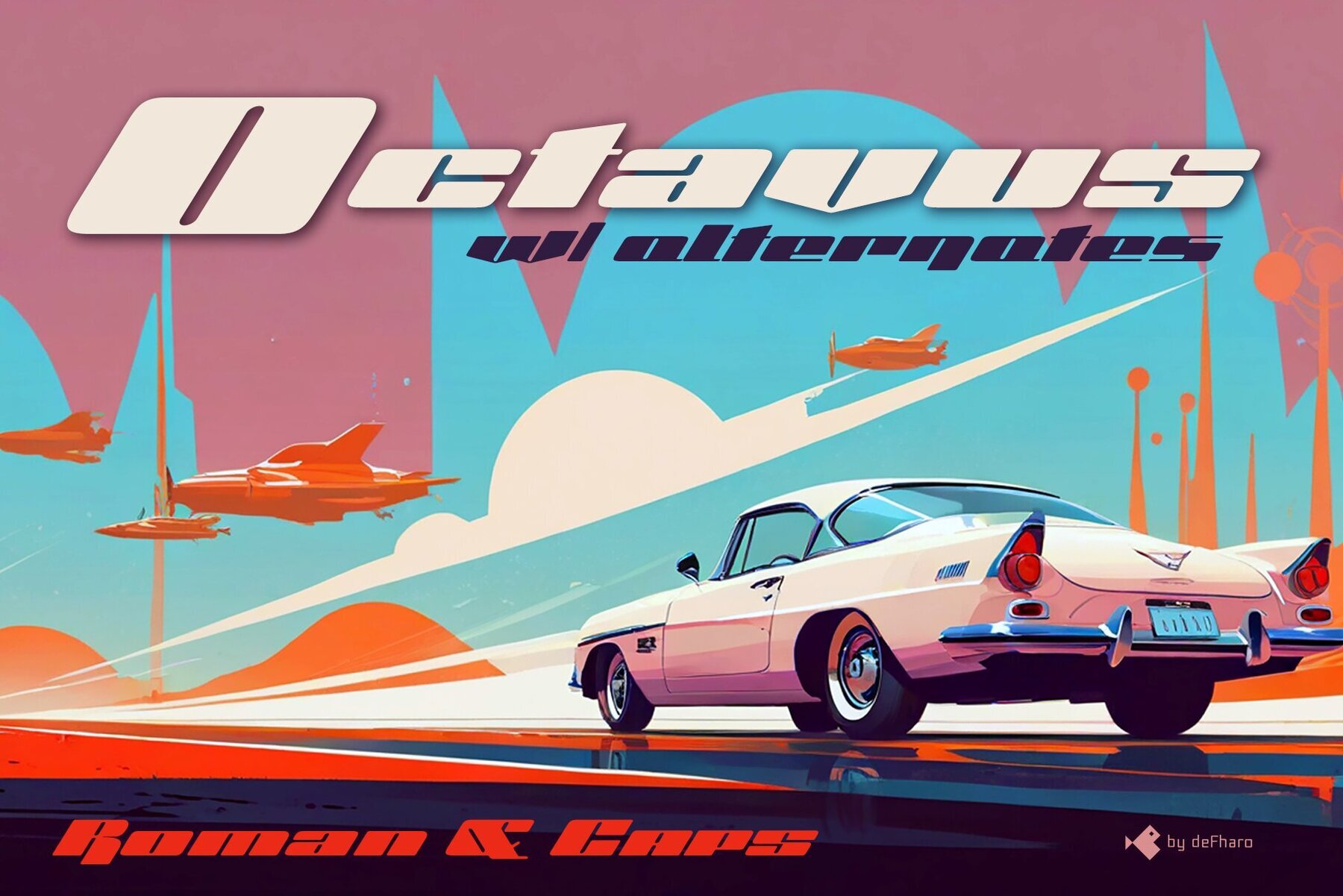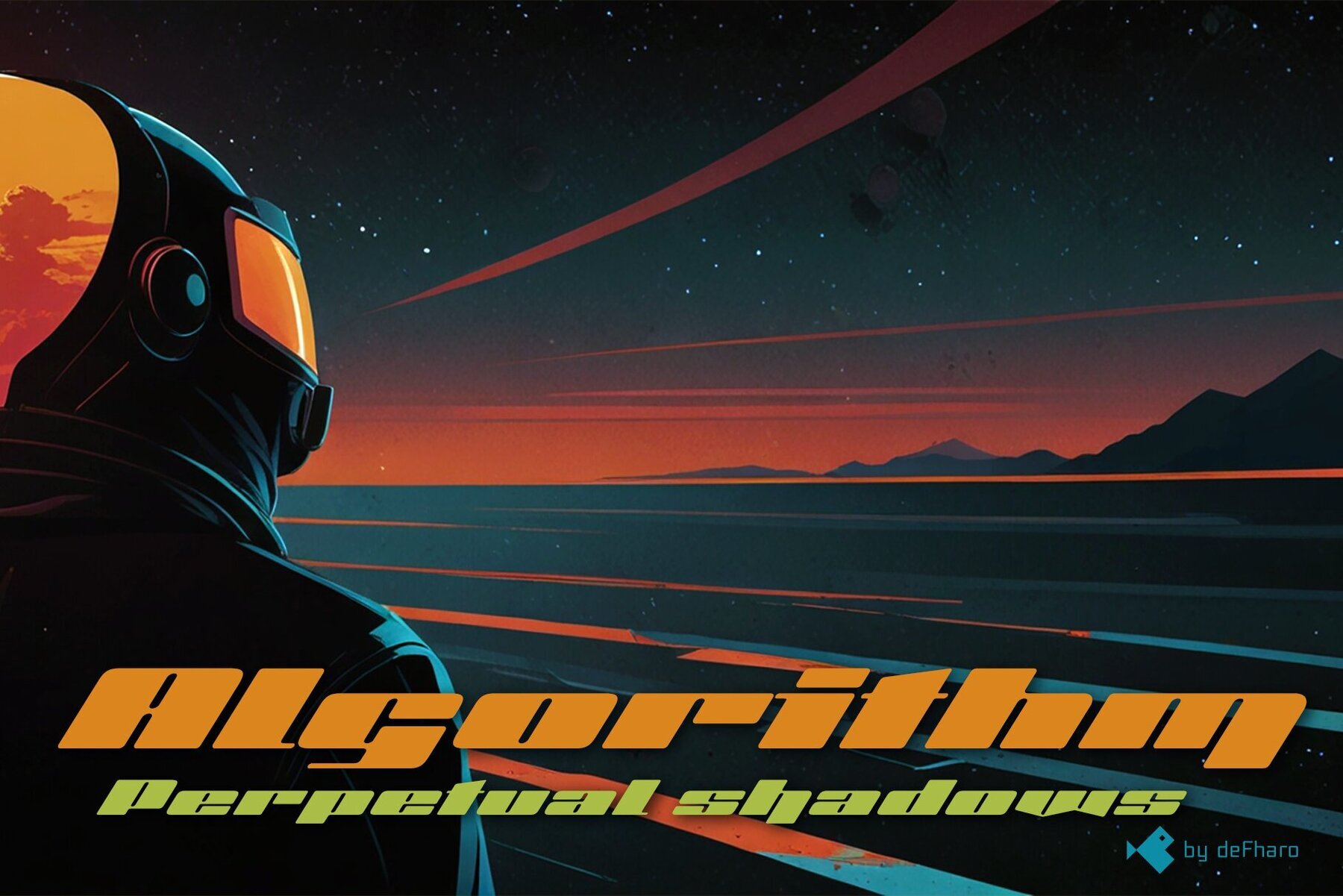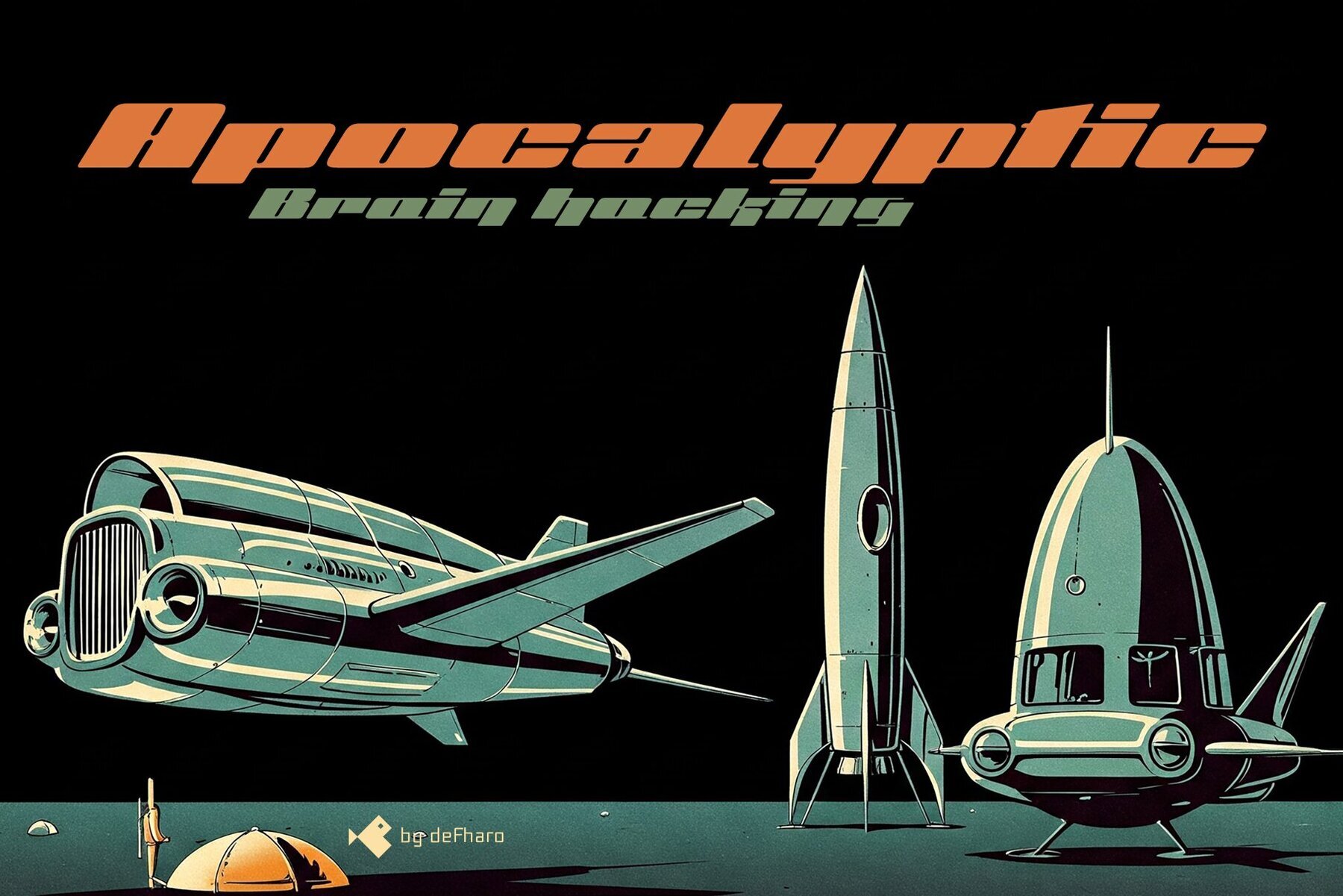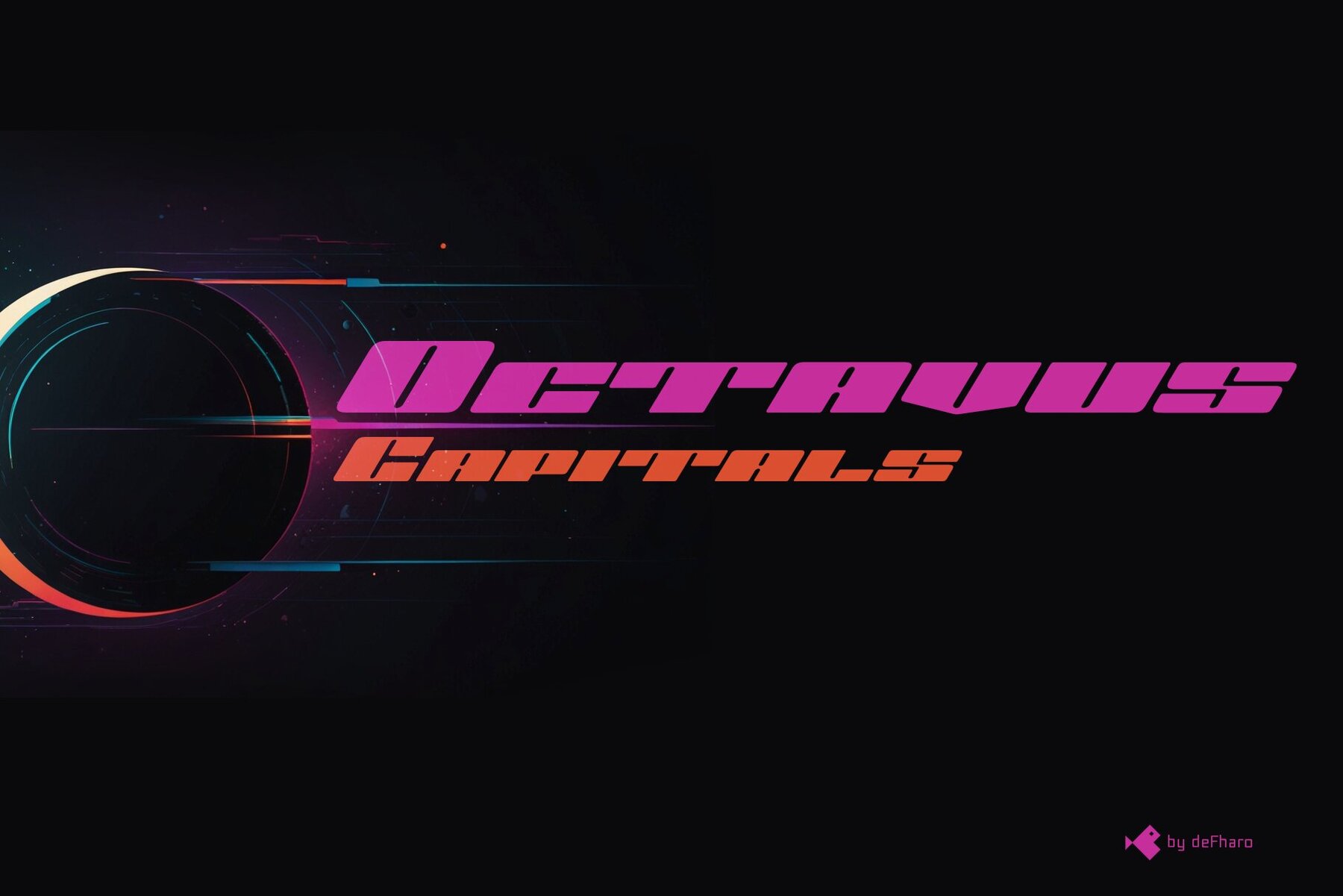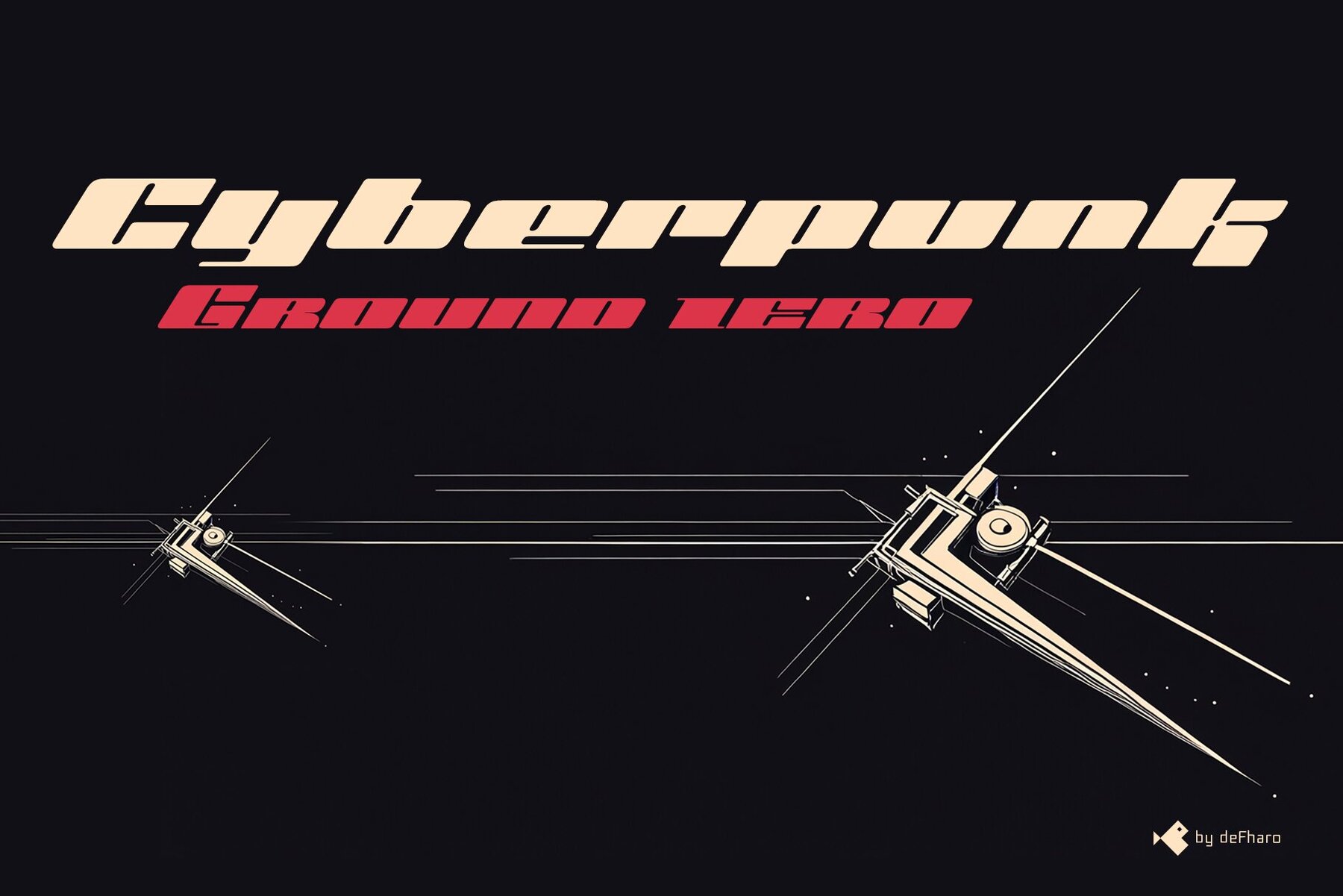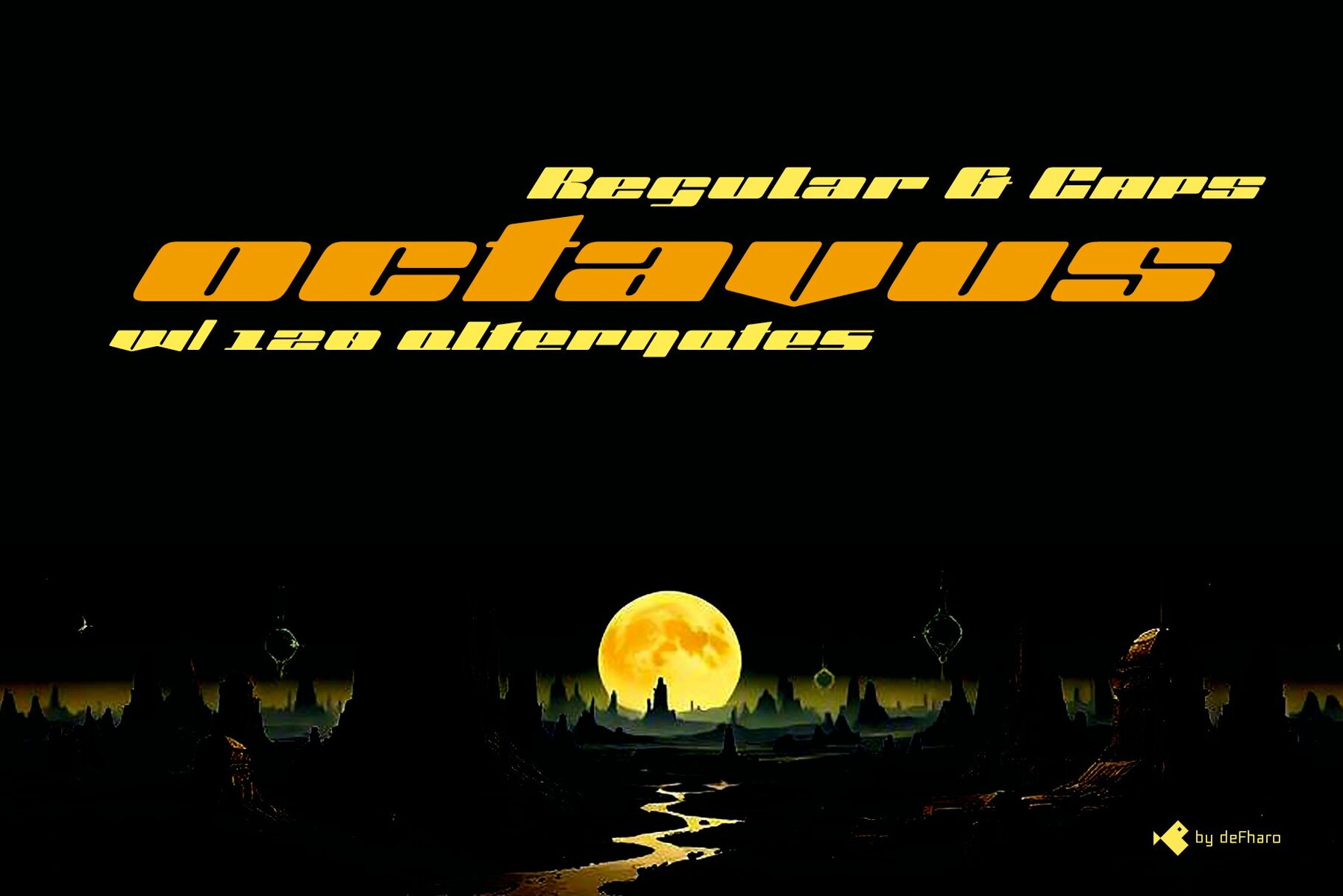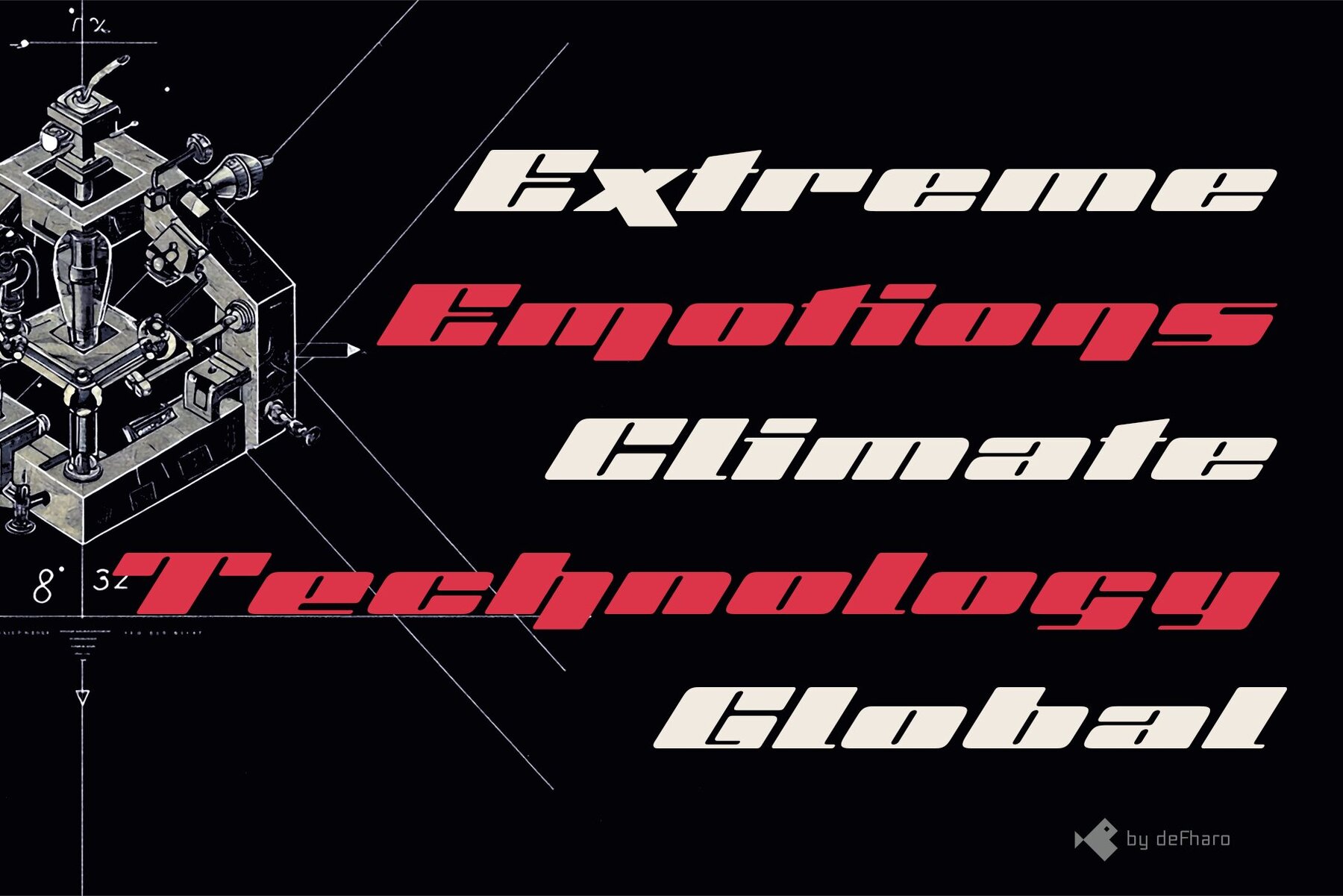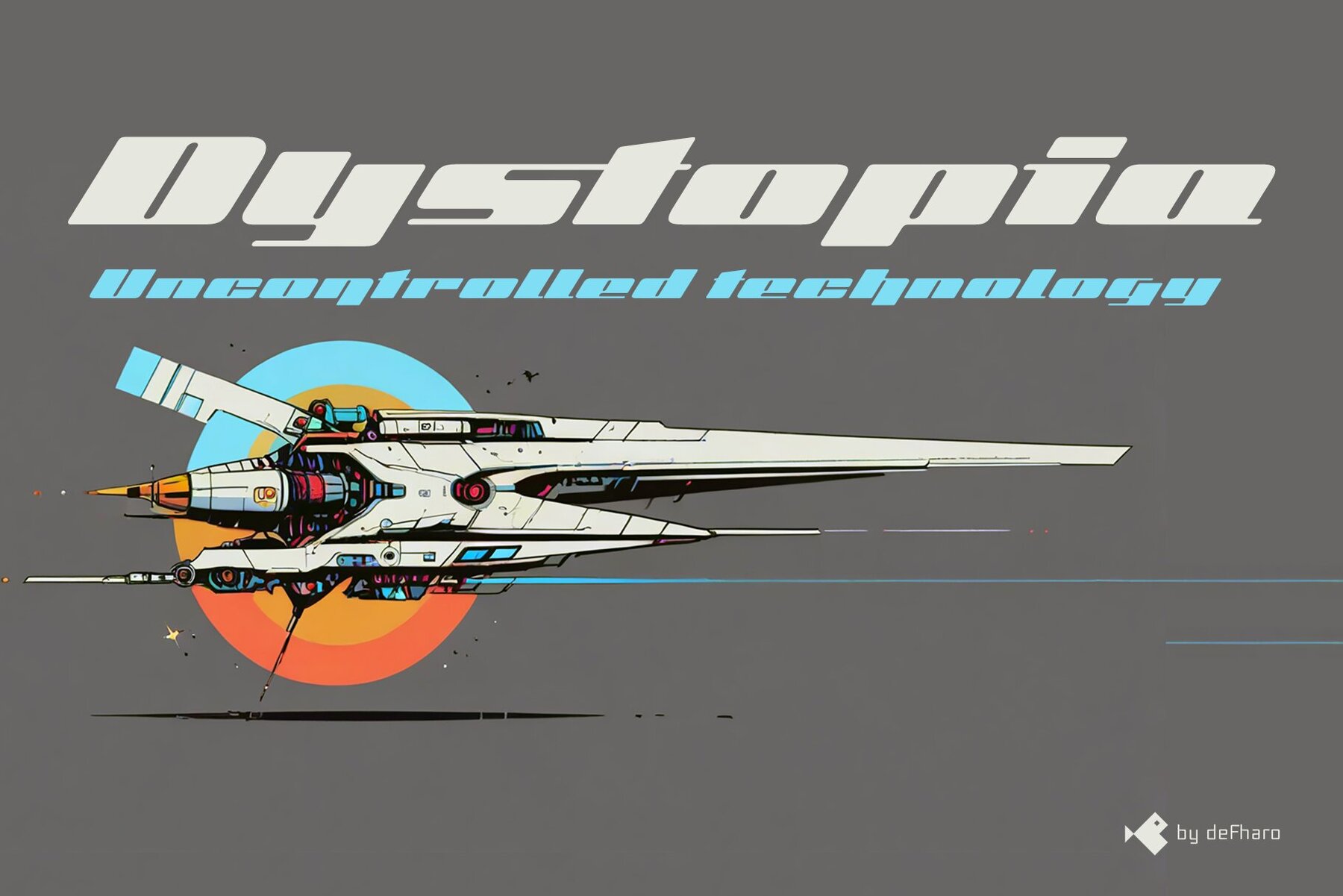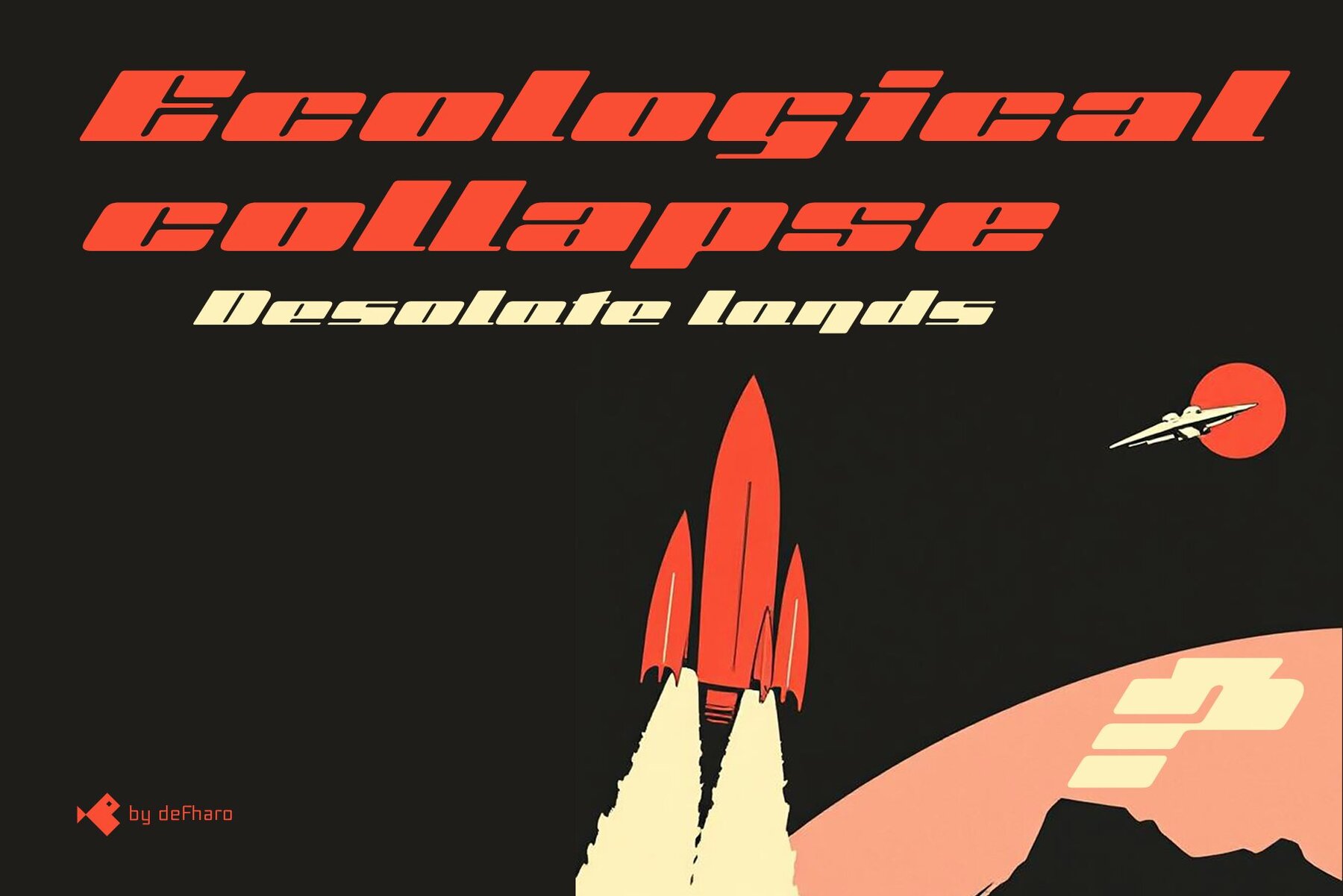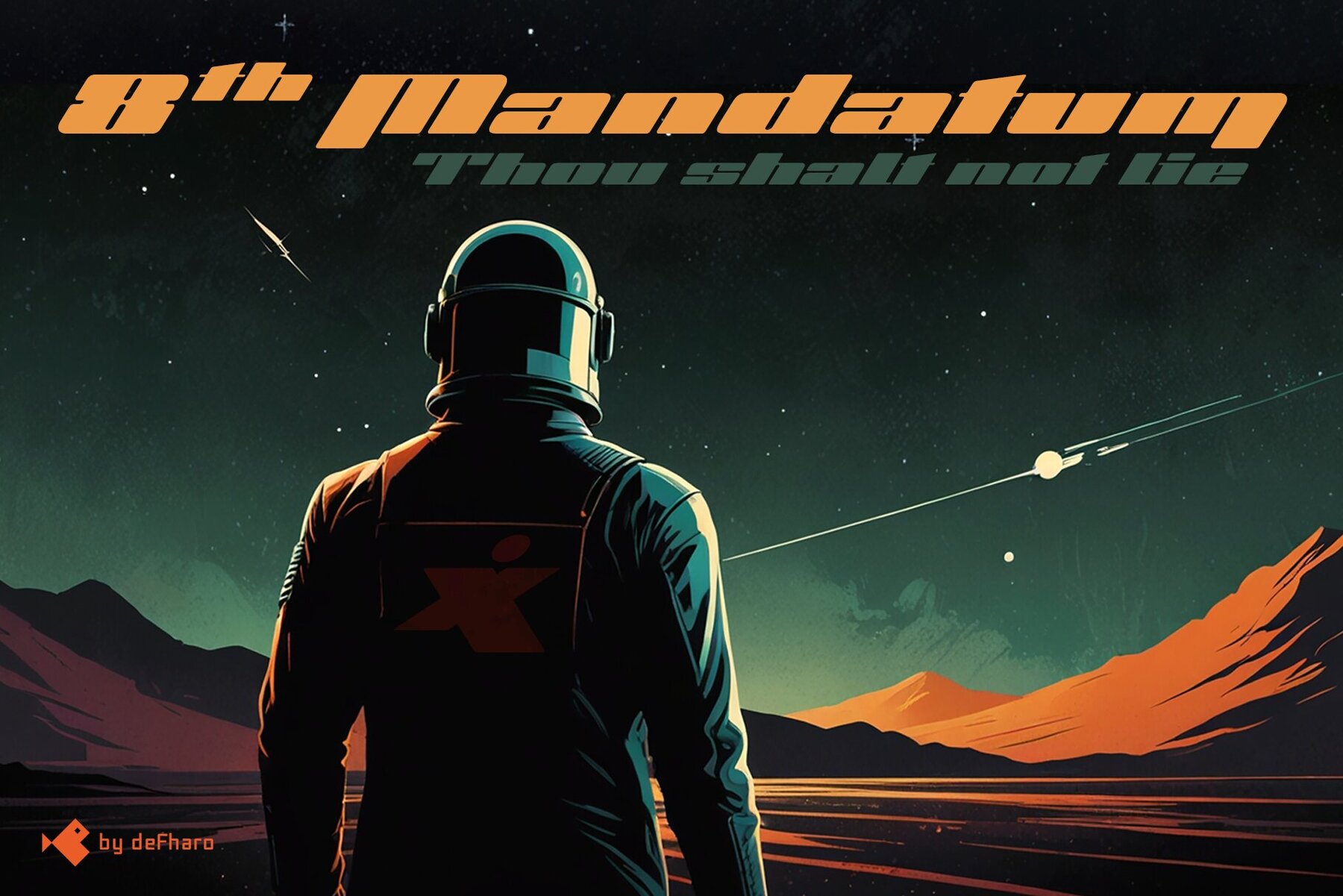
Octavus Slanted Font
Octavus is a striking blend of retro-futuristic aesthetics and technological flair, characterized by its ultra-wide and slanted dimensions. Its 32-degree slant imparts an unmistakable dynamism and bold minimalism, creating a unique visual impact for any design project. This distinctive typeface family comes in two versions: Roman and Capitals. With its expanded proportions and robust black weight, Octavus possesses a bold personality that delves into minimalist design. The pronounced 32-degree slant infuses each letter with a dynamic feel, merging contemporary aesthetics with futuristic visions. Its thick, bold form, coupled with dramatic contrasts between horizontal and vertical stems, crafts a modern yet timeless appeal. Featuring rounded finishes, Octavus creates a vibrant and technological visual setting, enriched with vintage nuances. Ideal for those seeking a font that bridges eras with sophistication.Octavus: A Retro-Futuristic Typeface